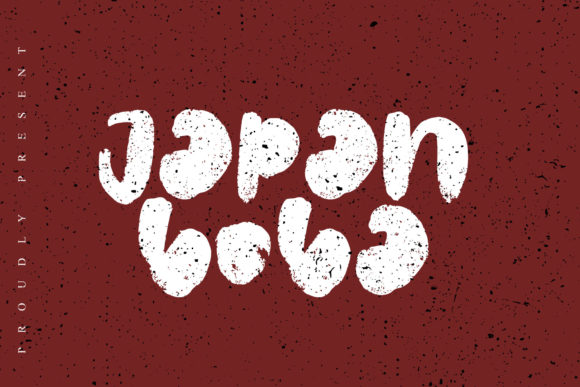
Behold, Japan Boba Font: A typographic wonderland where bubbly characters dance with boundless creativity. Immerse yourself in a world of captivating designs, where this display font weaves its magic. Whether you're a digital artist, a passionate gamer, a storyteller, or a visionary designer, Japan Boba Font is your gateway to captivating creations.
From cartoonish escapades to playful children's games, this font ignites your imagination. Let the vibrant, bubbly letters dance across your screen, leaving a trail of joy and wonder. Craft eye-catching quotes that resonate with your audience, turning ordinary words into extraordinary expressions. Unleash your creativity and design brand names that pop, book covers that intrigue, and posters that demand attention. With Japan Boba Font, the possibilities are endless.
Step into a world where fonts come alive, where each letter is a stroke of genius, a burst of color, a celebration of life. Japan Boba Font is not just a collection of characters; it's a journey into the realm of boundless creativity. Embark on this adventure today and let your imagination soar.